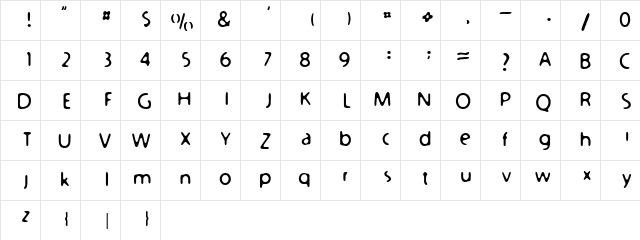
identity Regular Font Preview
identity Regular
identity Regular Font Details
Design Context for identity Typeface
identity takes a measured approach to typography — its balanced proportions and neutral character make it a reliable workhorse for both digital and print work.